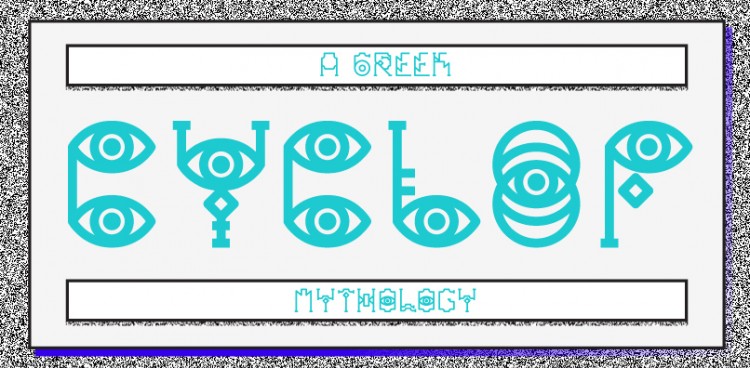
Saita Display Typeface » Design You Trust – Design Blog and Community
Inspired by eyes and Egyptian hieroglyphs, Saita is a brand display typeface that oozes gesture, language and speech. Download Saita ›